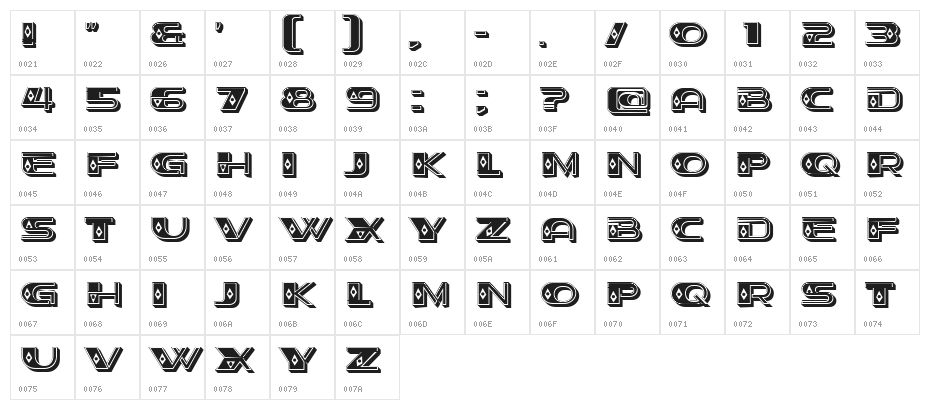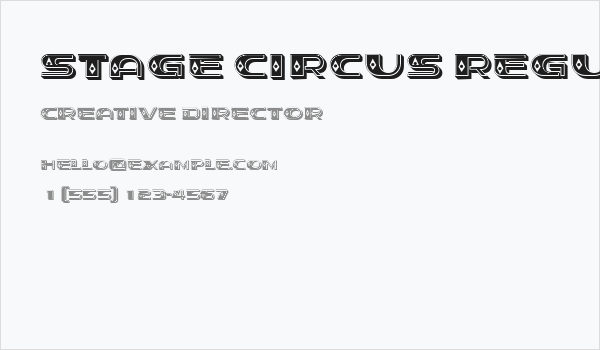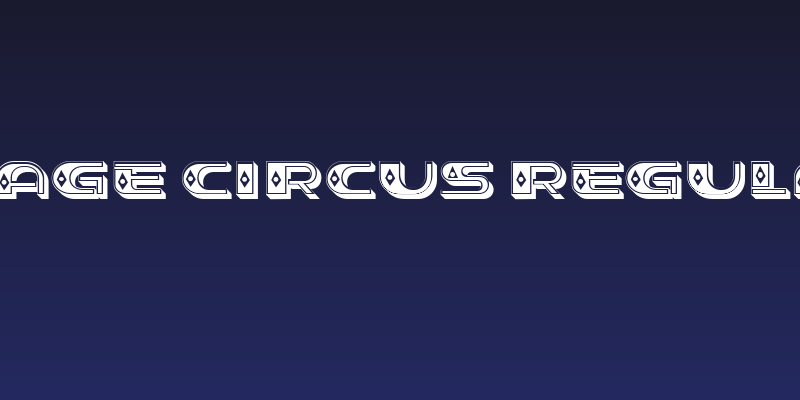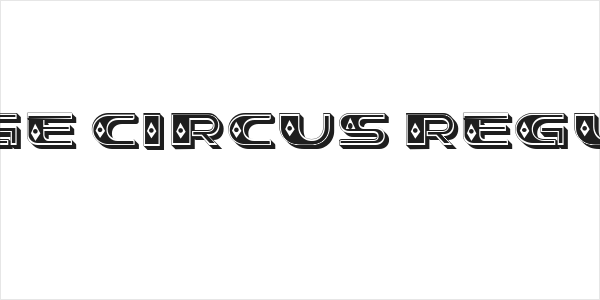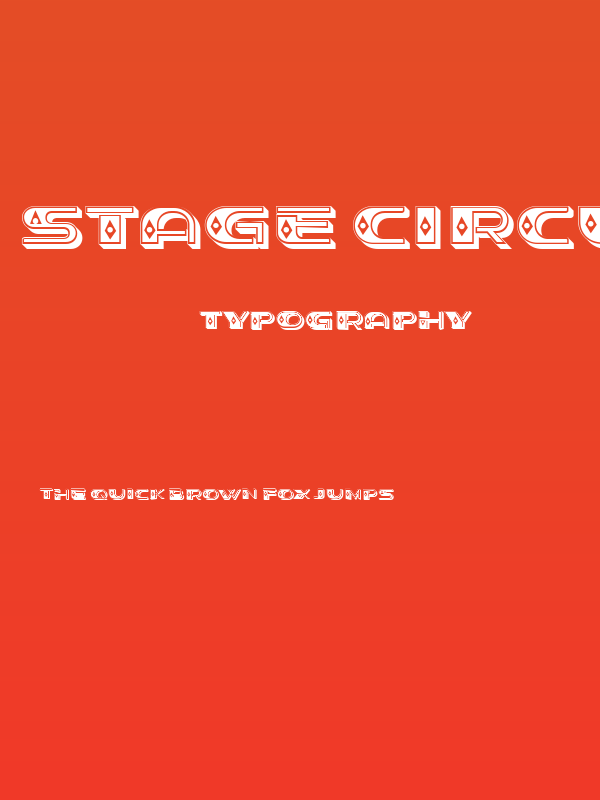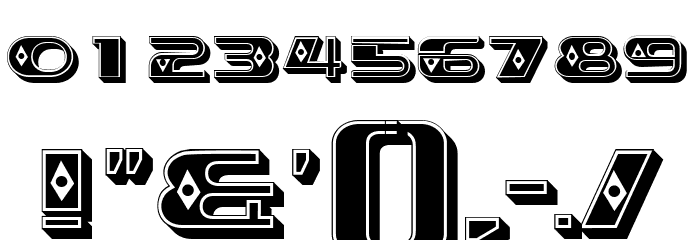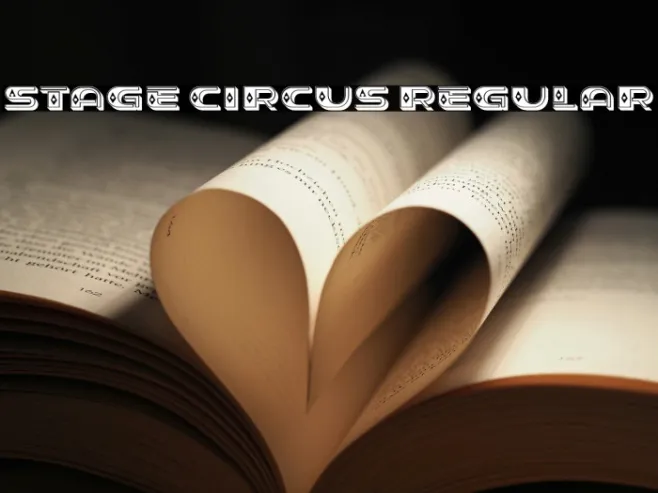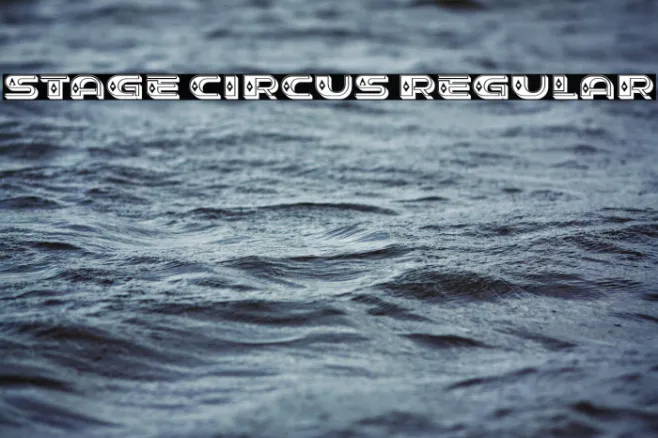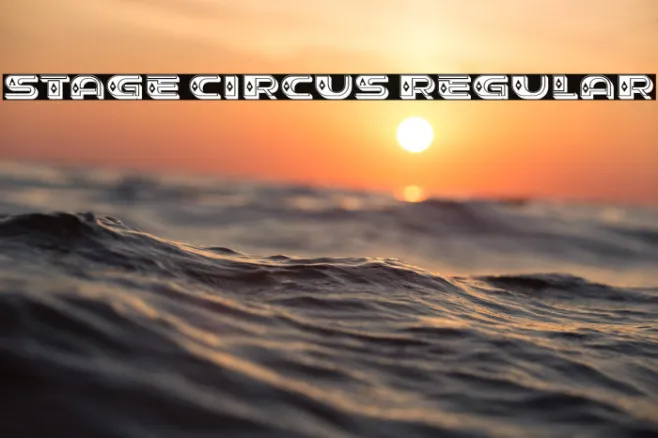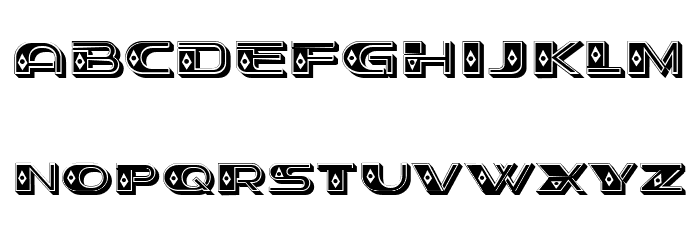
Stage Circus Regular Font
Stage Circus Regular Description
This font features a bold and decorative style with a distinct circus-inspired theme. Each character is designed with intricate patterns and geometric shapes, giving it a playful and eye-catching appearance. The uppercase letters are particularly striking, with bold lines and unique cut-out details that add depth and dimension. The numbers and special characters follow the same decorative theme, making the font cohesive and versatile for various design projects. Its bold presence makes it ideal for attention-grabbing headlines and creative displays.
| Proposed Projects | Ideal for circus-themed posters, playful branding, eye-catching headlines, and creative event invitations. |